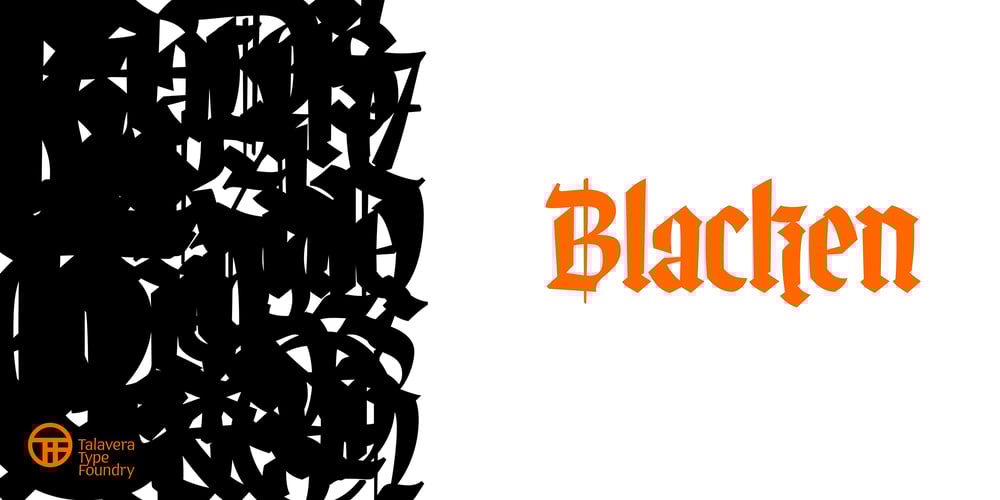
Blacken Font Family was designed by Jesus Barrientos and published by Talavera. Blacken contains 5 styles and family package options. Blacken is a contemporary blackletter with some fraktur flavour and a deep dark spirit. With its 420 characters covering 219 Latin-based languages, this font is ideal for your posters, book covers, logos, tattoos, and to play with its strong and thick characters. Among its inspirations are the gothic-cholo style, Mexican sign painting (the one in tacos and tortas, of course) and some delicious Belgian beer!Besides the Regular width, Blacken comes with Condensed and Expanded versions and Mix, which combines the three widths as OpenType features. You can also get Blacken Variable to create your own ideal width!